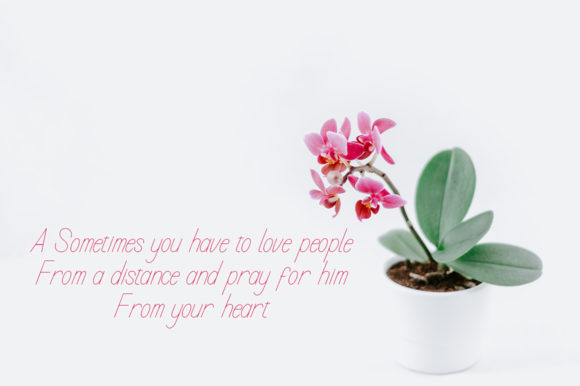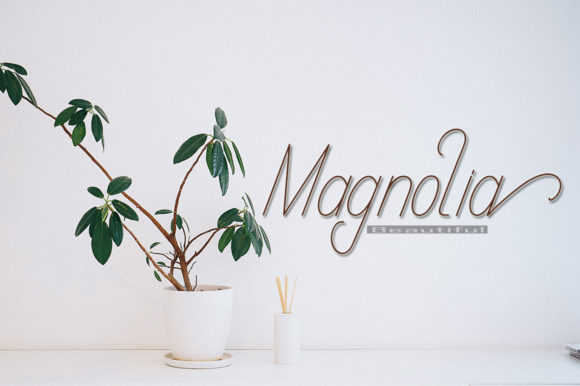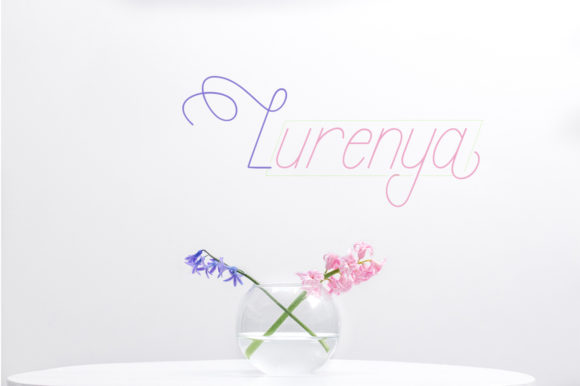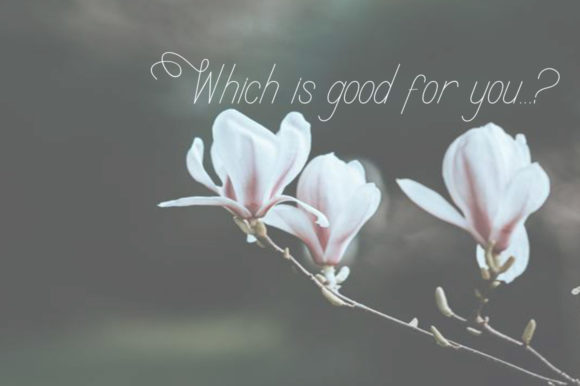
Discover the Timeless Elegance of Calysta Font
Are you a designer or crafter looking for a font that exudes classic appeal and sophistication? Look no further than Calysta Font. This strikingly timeless and minimalist font is sure to inspire your next creative project with its elegant feel. In this article, we’ll dive into the world of Calysta Font, exploring its features, benefits, and uses, as well as provide tips on how to make the most of this beautiful font.
What is Calysta Font?
Calysta Font is a modern take on classic typography, boasting a clean and minimalist design that is both elegant and sophisticated. Its timeless appeal makes it perfect for a wide range of design projects, from branding and advertising to packaging and digital media. The font’s classic feel is reminiscent of traditional serif fonts, but with a modern twist that sets it apart from more traditional typefaces.
Key Features of Calysta Font
So, what makes Calysta Font so special? Here are just a few of its key features:
- Timeless appeal: Calysta Font has a classic feel that never goes out of style, making it perfect for designers who want to create timeless designs.
- Minimalist design: The font’s clean and minimalist design makes it easy to read and versatile enough to use in a wide range of design projects.
- Elegant feel: Calysta Font has an undeniably elegant feel, making it perfect for designers who want to add a touch of sophistication to their designs.
- Highly legible: The font is highly legible, even at small sizes, making it perfect for use in body text and other applications where readability is key.
Benefits of Using Calysta Font
So, why should you choose Calysta Font for your next design project? Here are just a few benefits of using this beautiful font:
- Instant credibility: Calysta Font’s classic appeal and elegant feel lend an air of credibility to any design project, making it perfect for businesses and brands who want to establish trust with their audience.
- Versatility: The font’s minimalist design makes it versatile enough to use in a wide range of design projects, from print materials to digital media.
- Easy to pair: Calysta Font pairs well with a wide range of other fonts, making it easy to create harmonious and visually appealing typography.
Using Calysta Font in Your Design Projects
So, how can you use Calysta Font in your design projects? Here are a few ideas to get you started:
- Branding and advertising: Use Calysta Font to create elegant and sophisticated branding and advertising materials, such as logos, business cards, and billboards.
- Packaging design: The font’s classic appeal makes it perfect for use in packaging design, adding a touch of timeless elegance to product labels and packaging materials.
- Digital media: Calysta Font is also perfect for use in digital media, such as website design, social media graphics, and email marketing campaigns.
Tips for Getting the Most out of Calysta Font
Here are a few tips for getting the most out of Calysta Font:
- Experiment with font sizes: Calysta Font is highly legible, even at small sizes, so don’t be afraid to experiment with different font sizes to find the perfect fit for your design.
- Pair with other fonts: Calysta Font pairs well with a wide range of other fonts, so try pairing it with other typefaces to create interesting and harmonious typography.
- Use it sparingly: While Calysta Font is elegant and sophisticated, it can be overwhelming if used too much. Use it sparingly to add a touch of elegance to your design.
In conclusion, Calysta Font is a strikingly timeless and minimalist font with an elegant feel that is sure to inspire your next creative project. With its classic appeal, highly legible design, and versatility, it’s the perfect choice for designers and crafters who want to add a touch of sophistication to their designs. Whether you’re working on a branding project, packaging design, or digital media, Calysta Font is sure to impress.